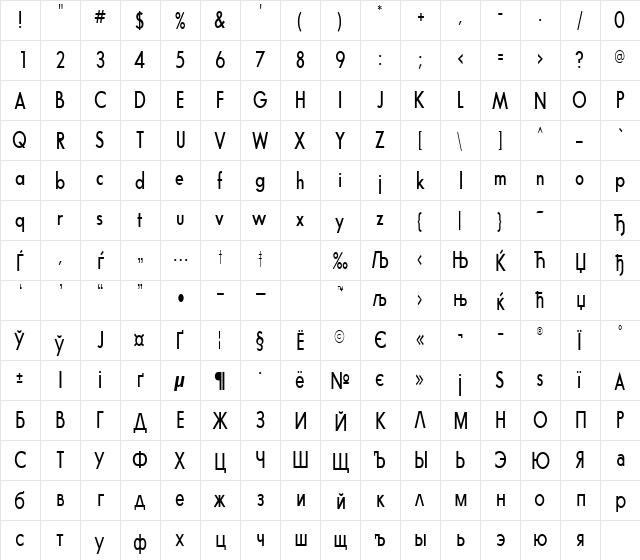
Futura Narrow Bold Font Preview
Design Context for Futura Narrow Typeface
Futura Narrow channels digital-age aesthetics through its sharp, structured letterforms — ideal for brands that want to signal innovation. Its bold stroke weight gives it real presence on the page. Its narrow stance lets it pack a punch even in space-constrained designs.